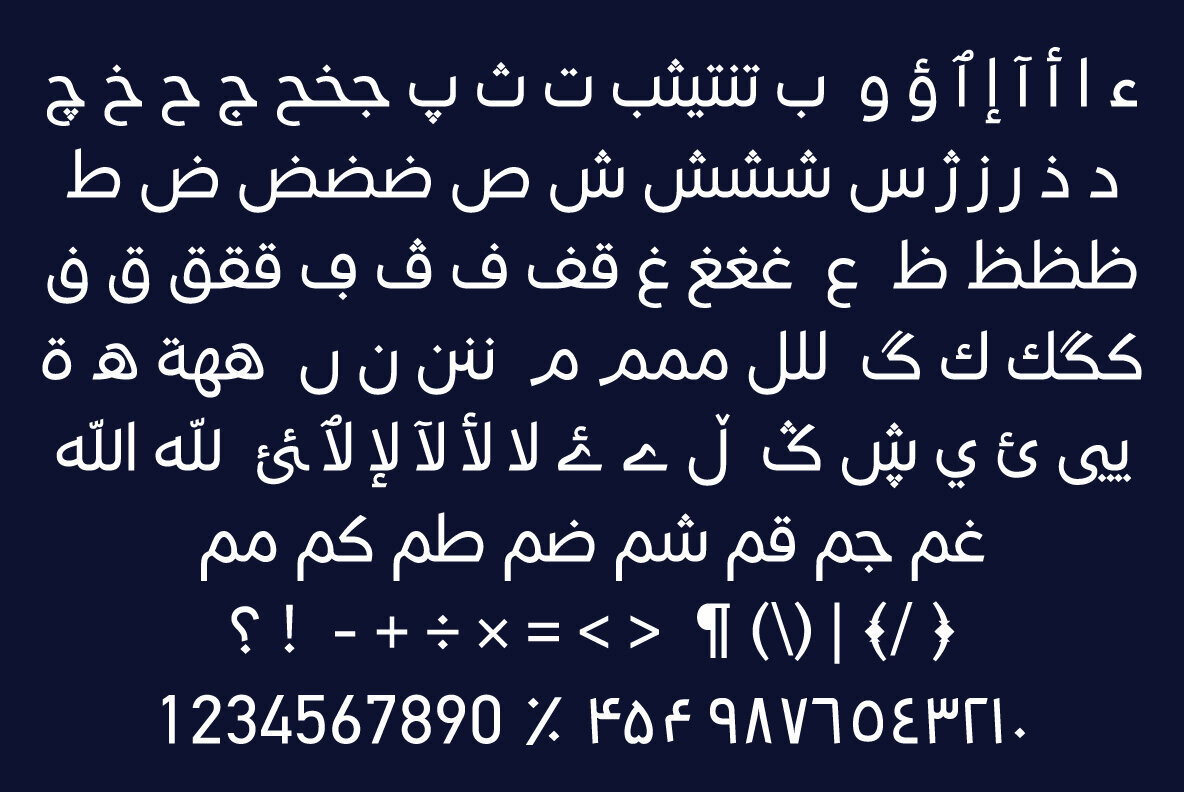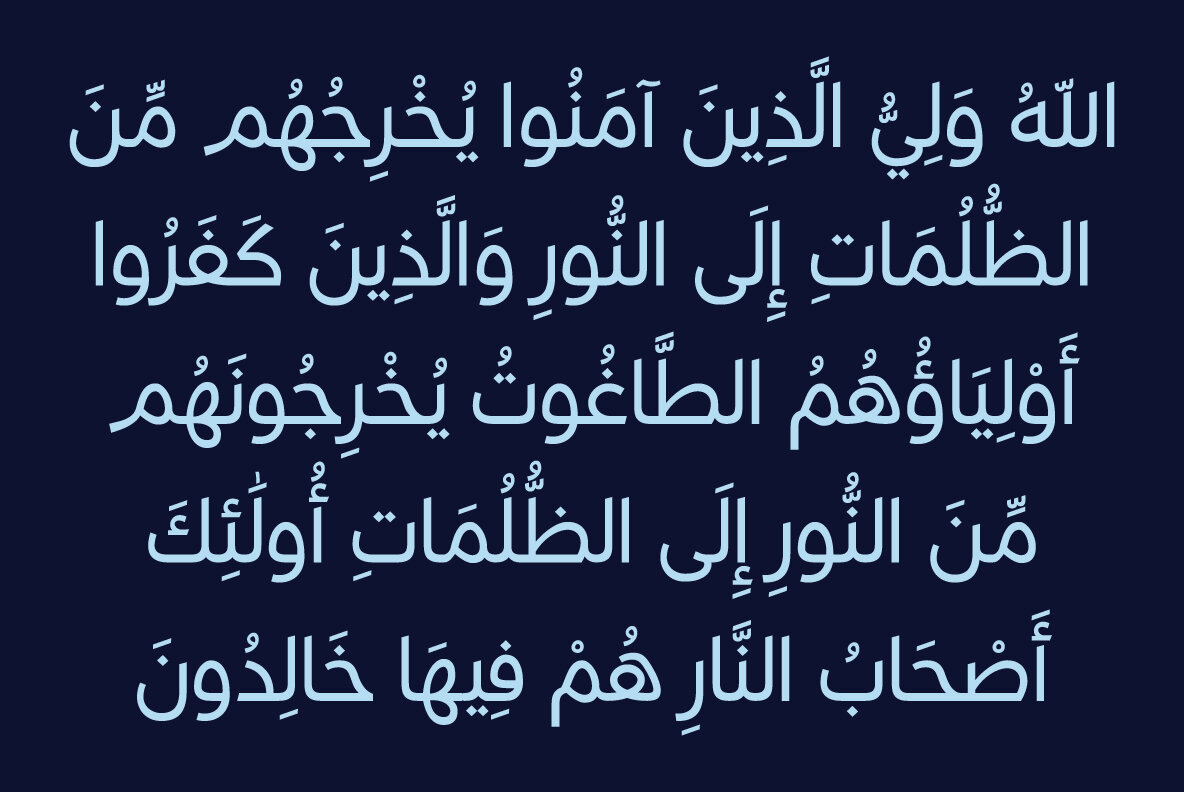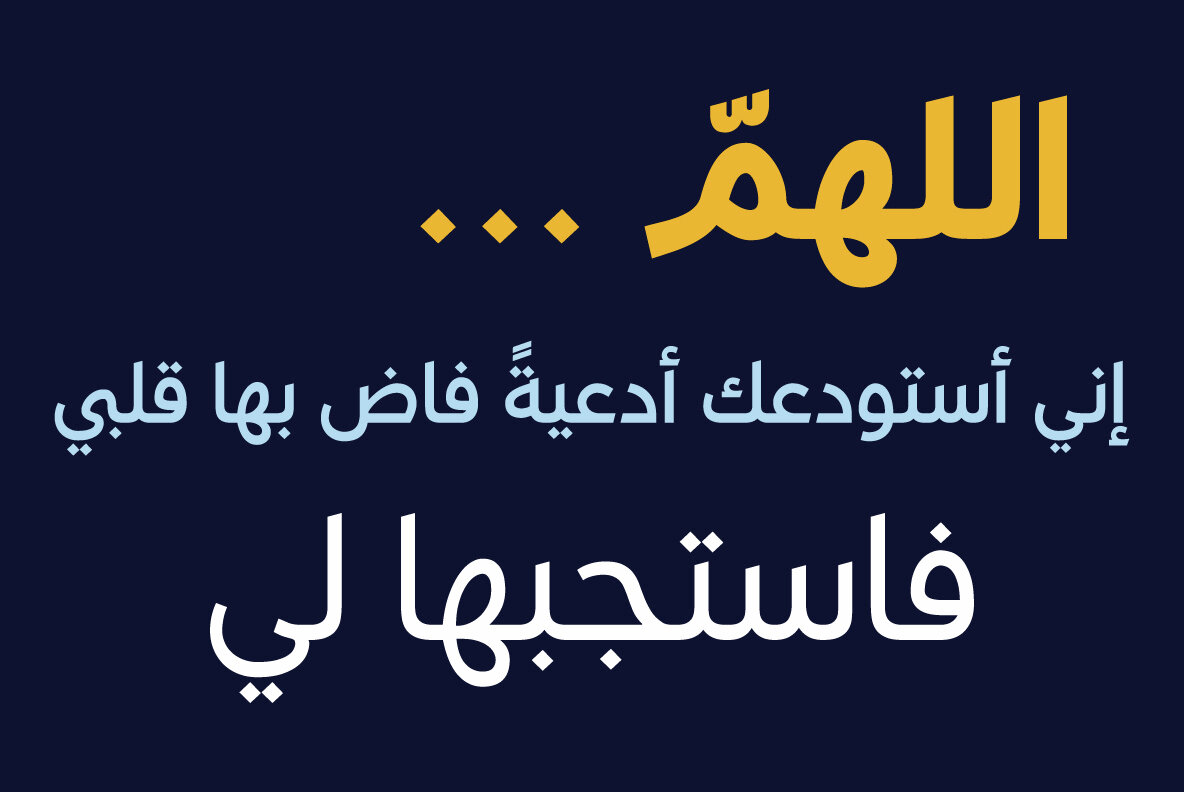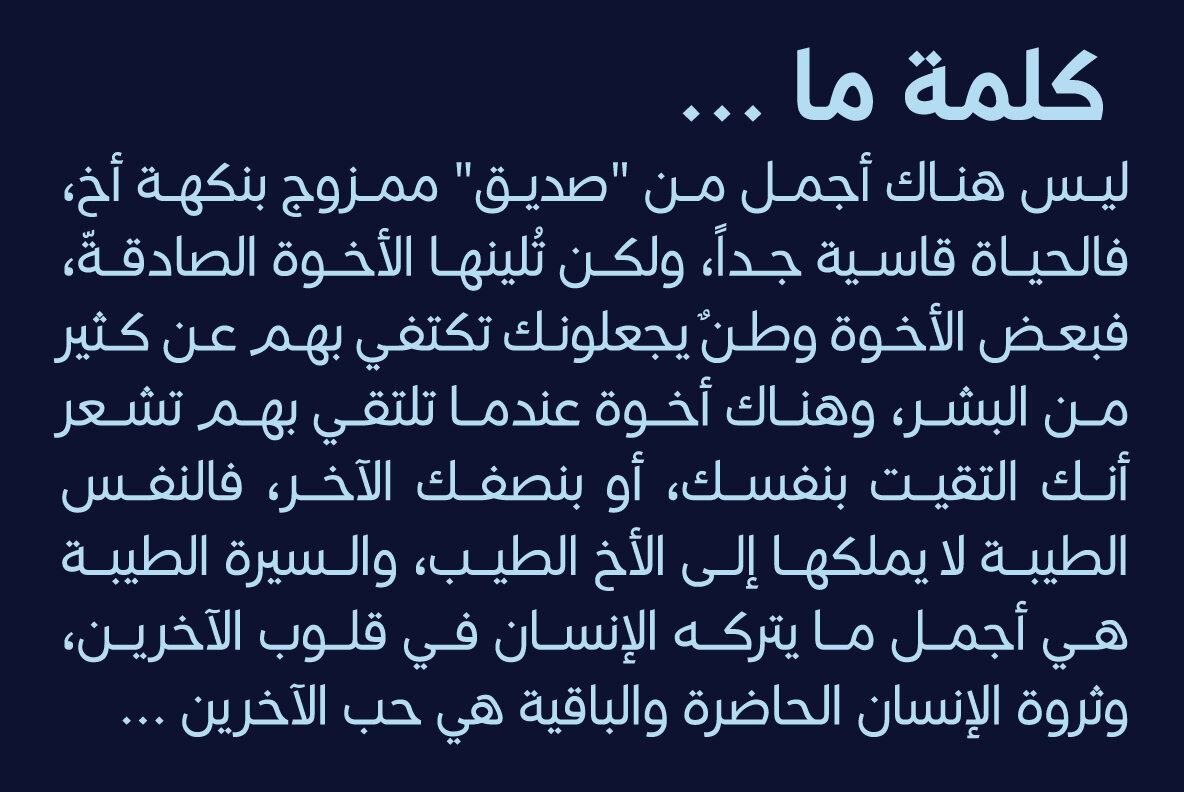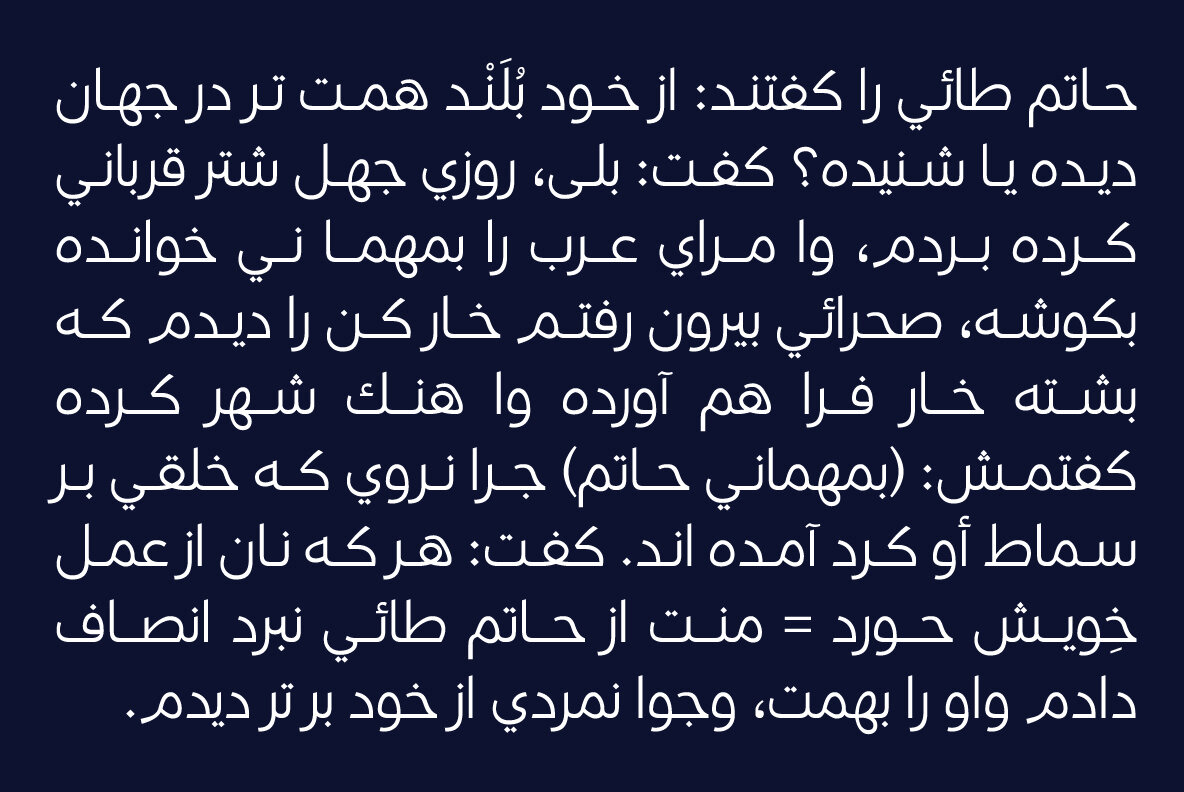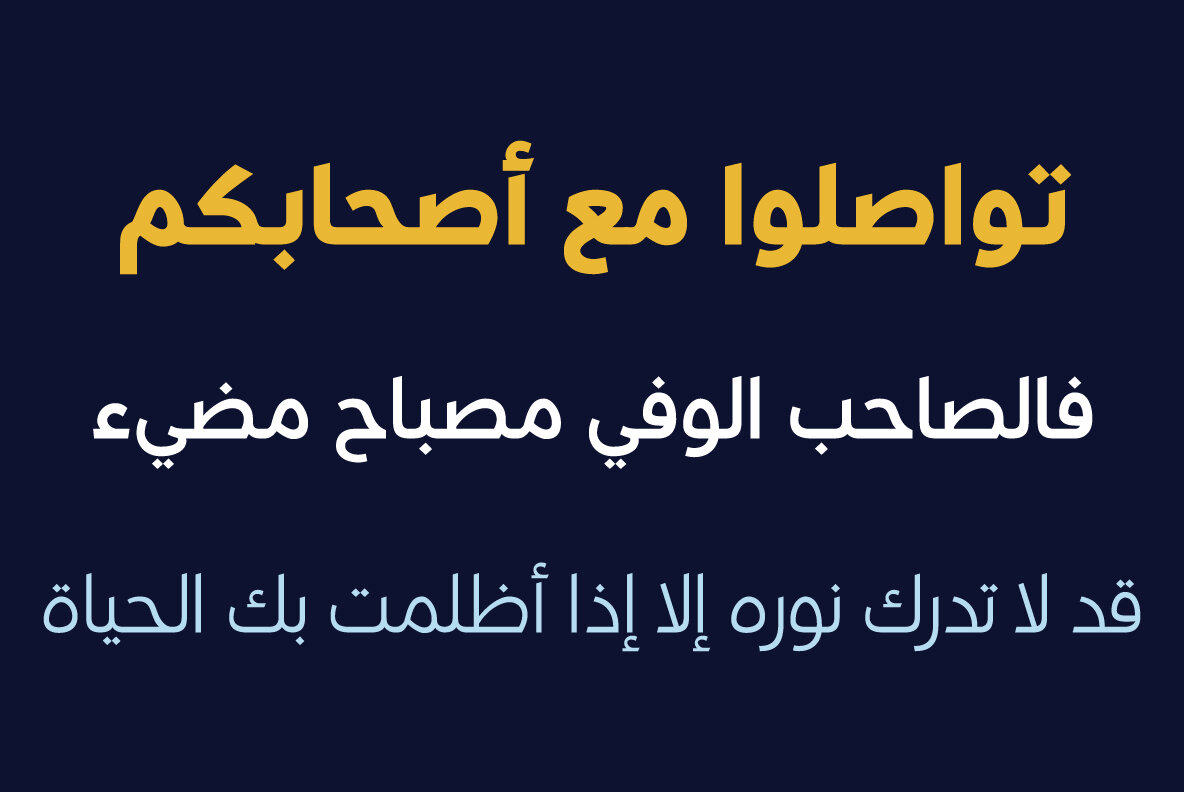
HS Alnada Font
HS Alnada is a contemporary OpenType Arabic typeface that beautifully blends modern Kufi and Naskh styles. It strikes a perfect balance between structural precision and calligraphic elegance, characterized by its distinct angular cuts. This versatile typeface supports Arabic, Persian, Urdu, and Kurdish scripts, making it ideal for diverse linguistic applications. HS Alnada is available in five meticulously crafted weights: Light, Regular, Medium, Bold, and Black. Each weight offers enhanced legibility, making the typeface suitable for a wide range of uses, from advertising and editorial content to books, magazines, newspapers, and various creative projects. Whether you're designing for print or digital media, HS Alnada provides the flexibility and aesthetic appeal to meet your needs.